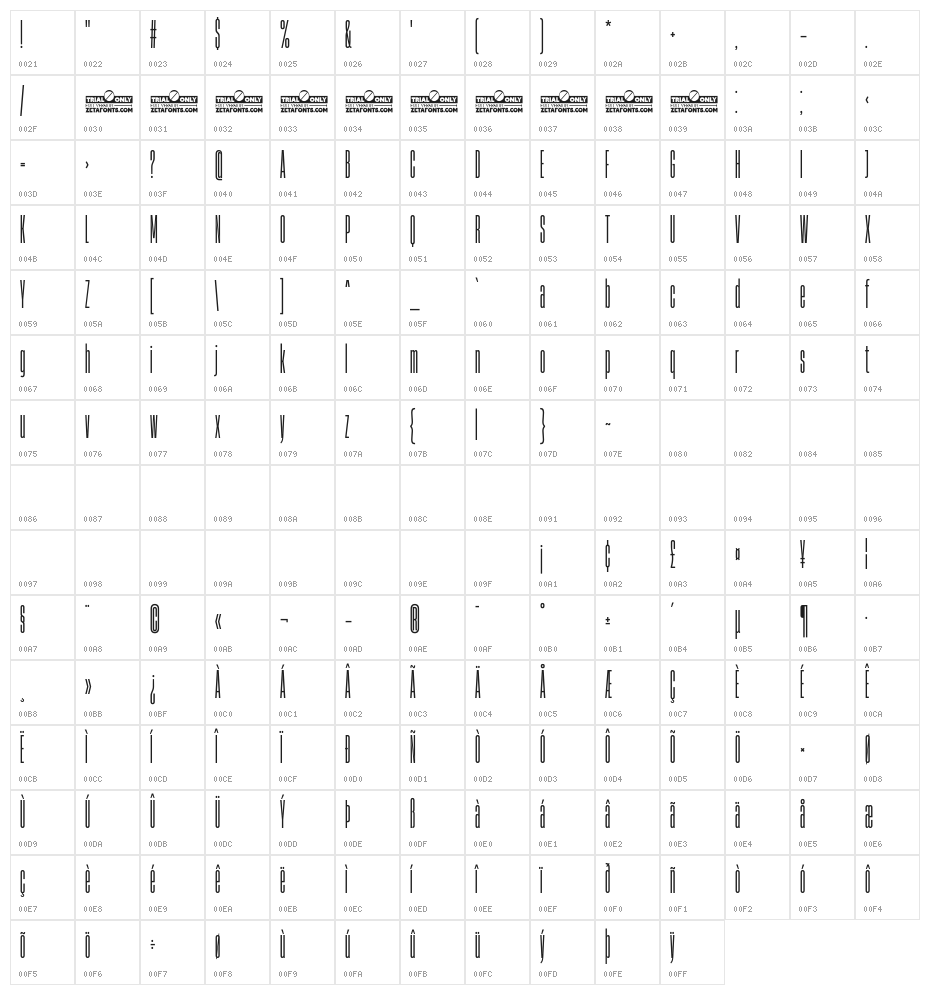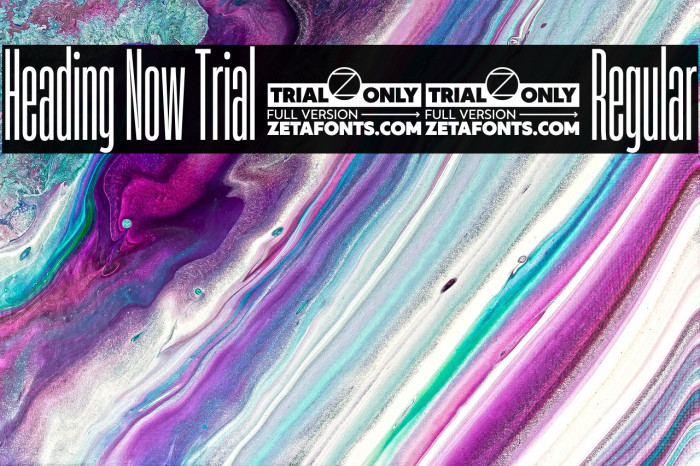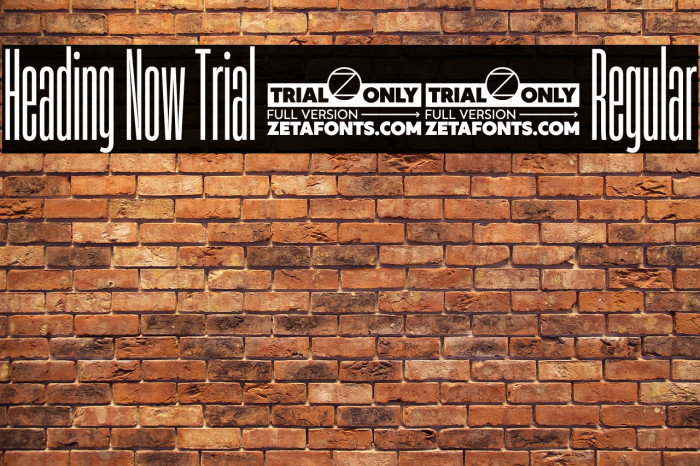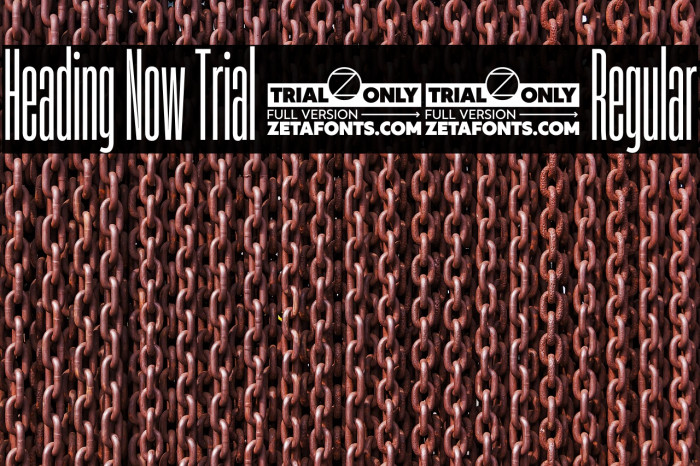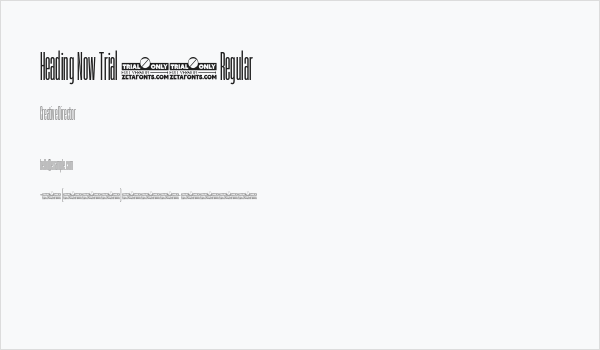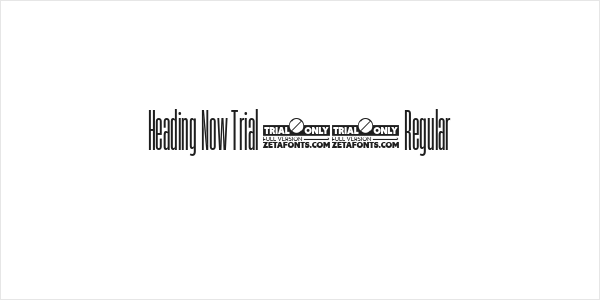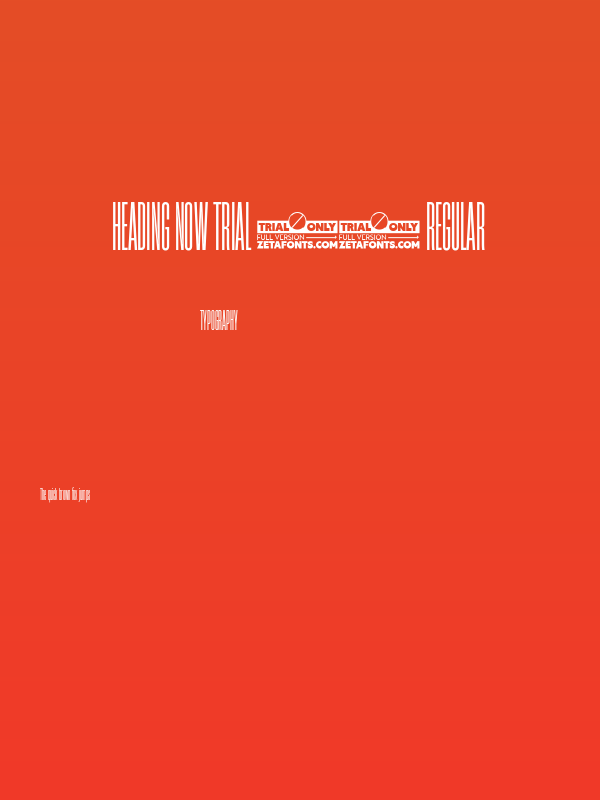
Heading Now Trial 04 Regular Font
Heading Now Trial 04 Regular Description
This font features a tall, narrow design with a modern and sleek appearance. The characters are elongated, giving a sense of height and elegance. The strokes are consistent in width, providing a uniform and clean look. The uppercase and lowercase letters maintain a cohesive style, with a slight geometric influence. The numerals and special characters are designed to match the overall aesthetic, ensuring a harmonious appearance across all text. This font is ideal for creating a strong visual impact while maintaining readability.
| Proposed Projects | Ideal for headlines, posters, branding, and editorial design where a modern and impactful look is desired. |